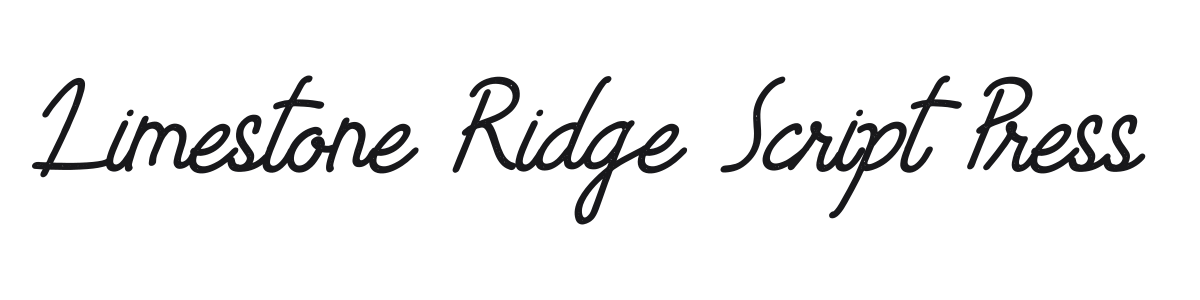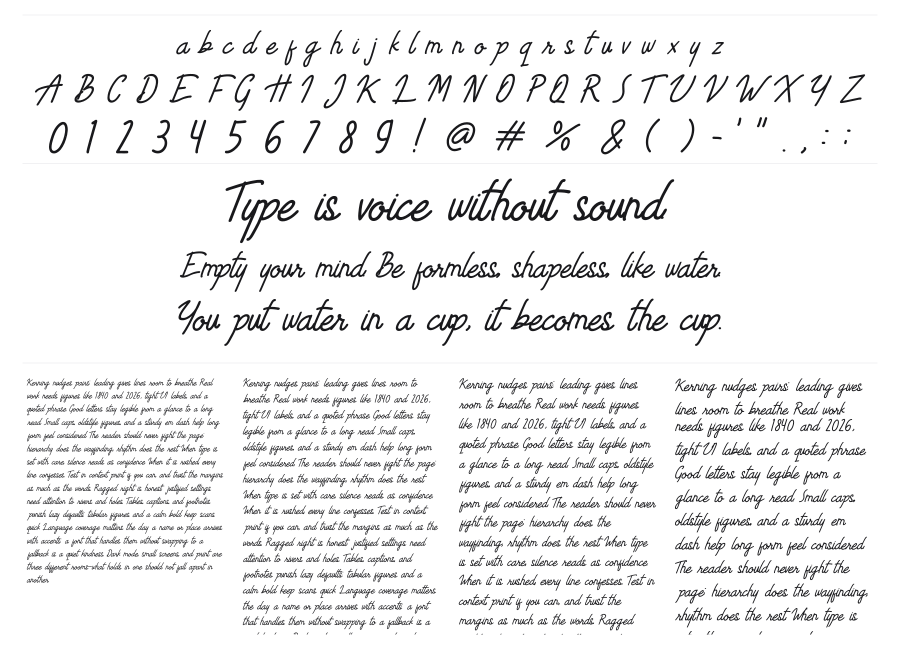
Limestone Ridge Script Press
Limestone Ridge Script Press is a casual connected script with a relaxed, hand-lettered feel rooted in mid-century Americana pen lettering. The monoweight strokes and loosely flowing connections give it an unpretentious, approachable warmth. It suits branding, packaging, and poster work where a handcrafted, outdoorsy personality is the goal.